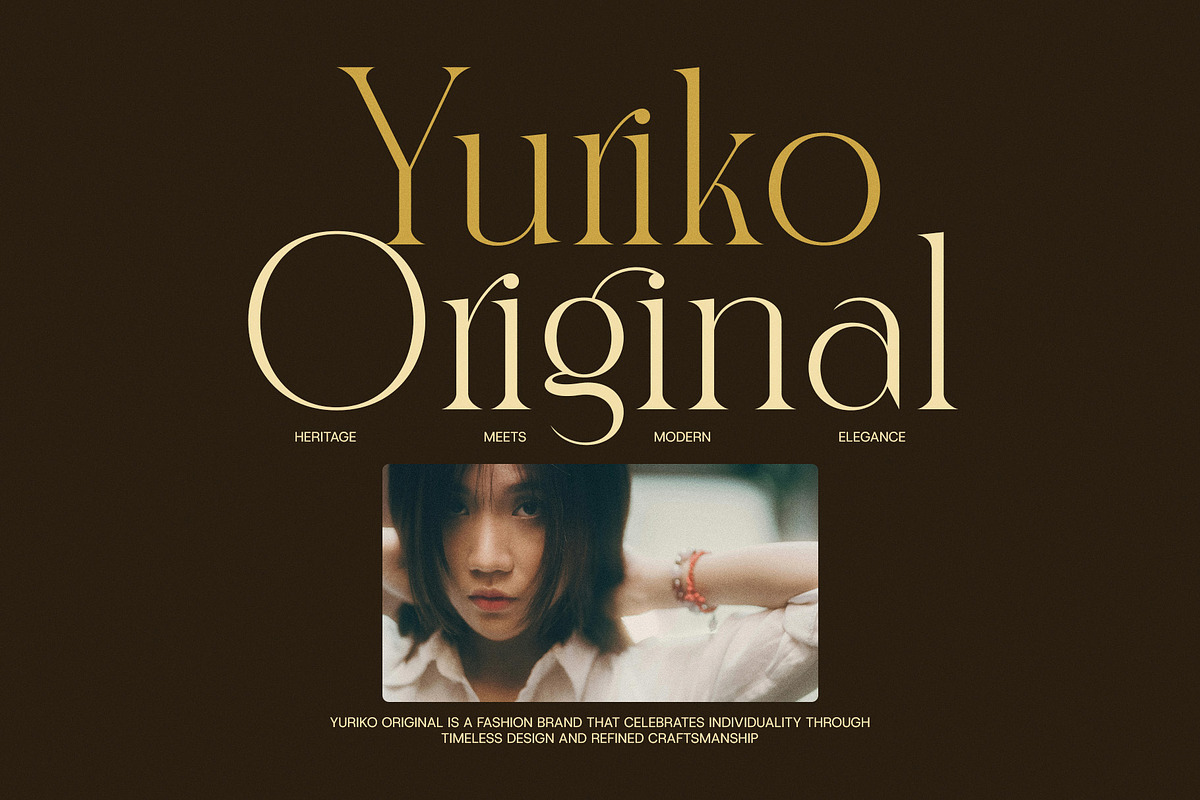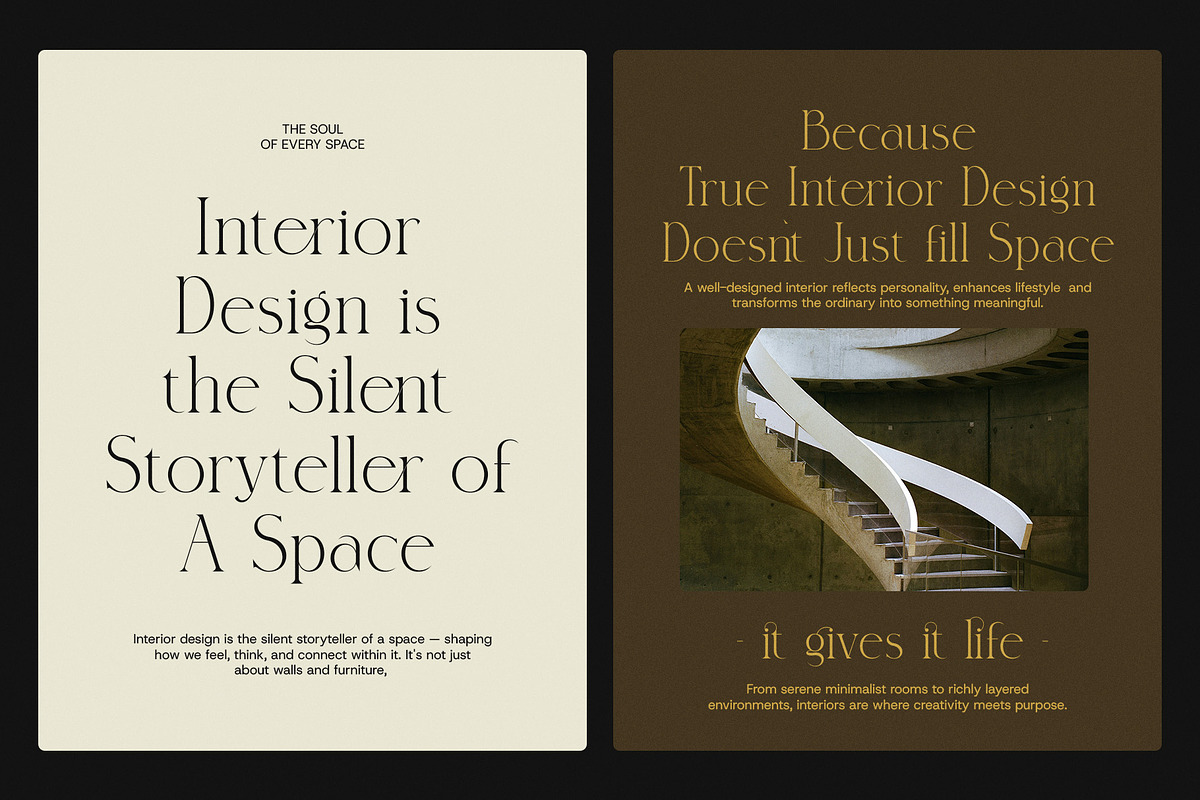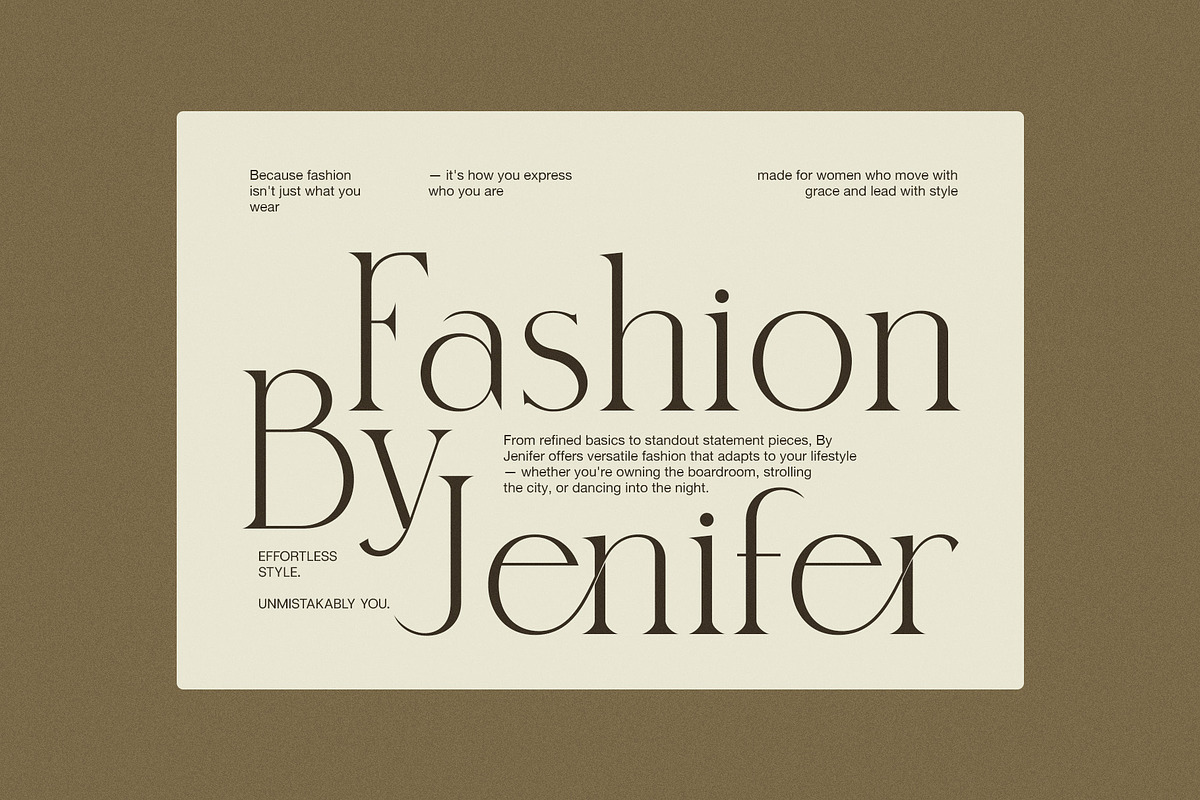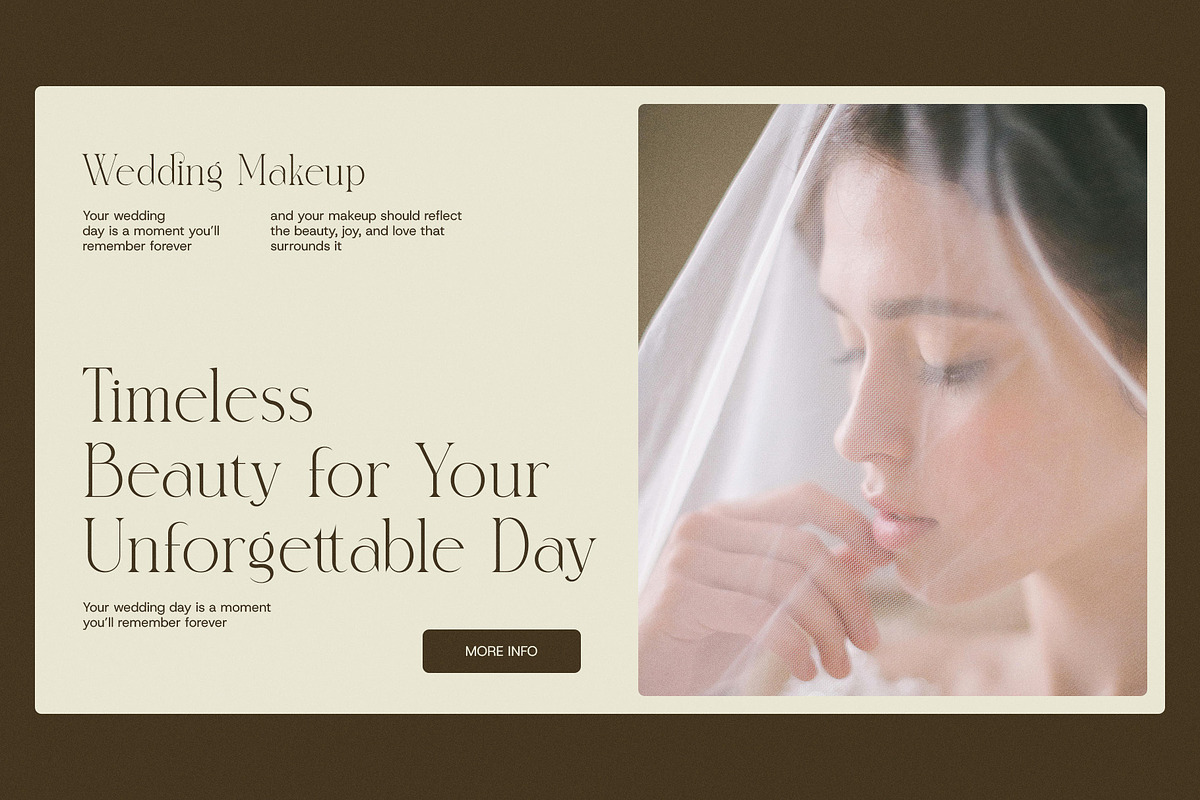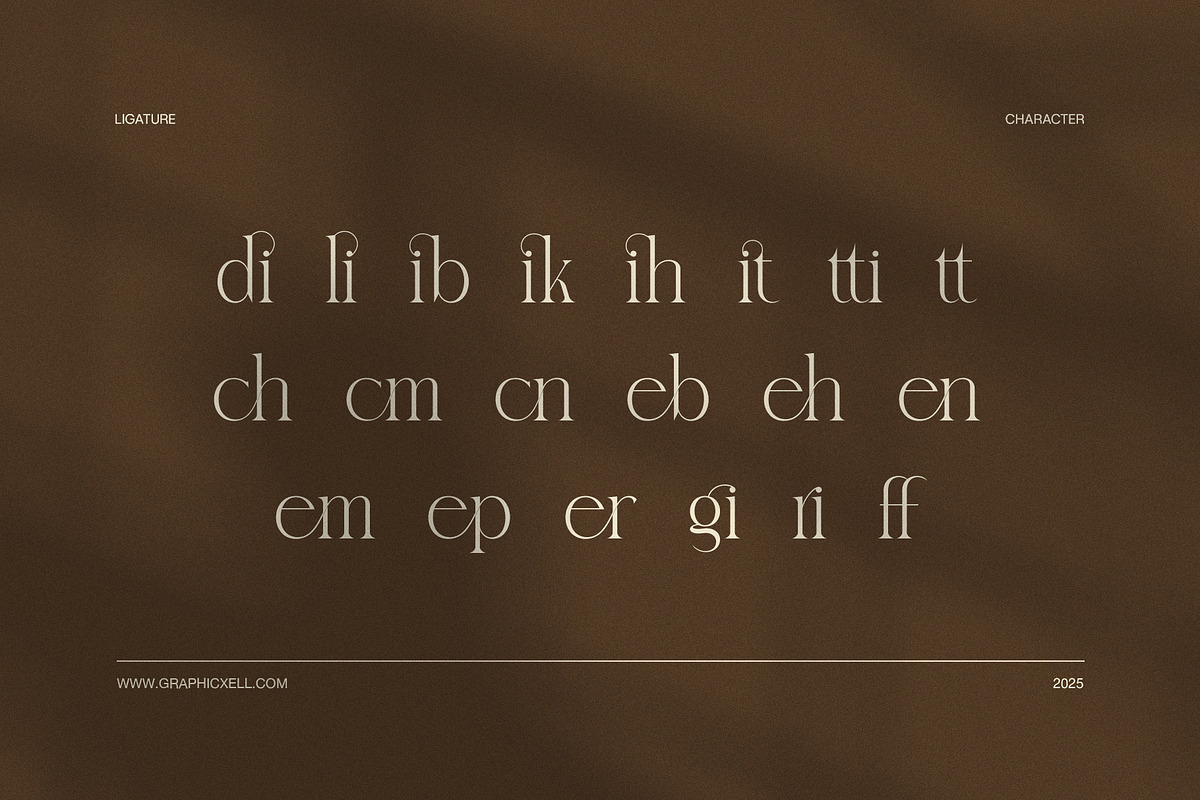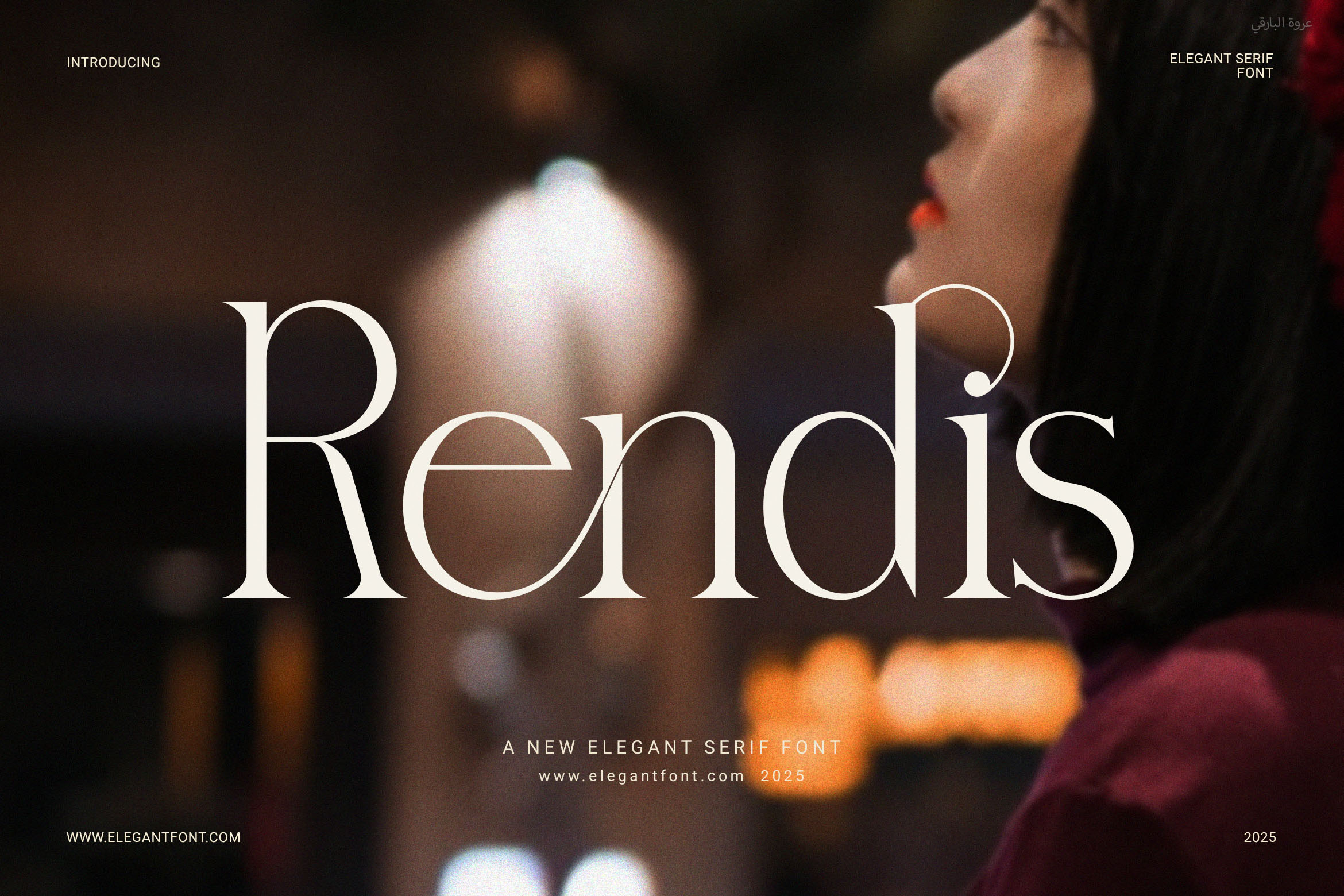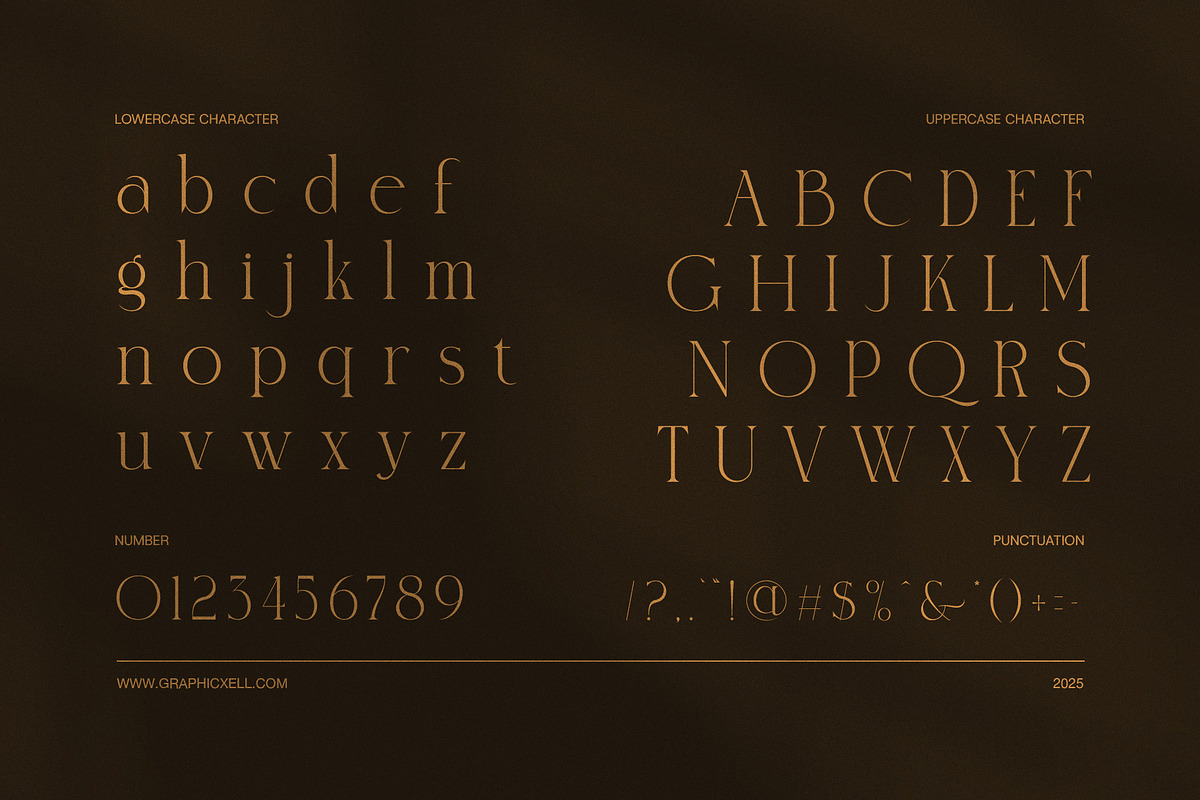
Rendis Elegant Serif Font
Rendis – A Clean & Elegant Serif for Stylish Branding
Rendis is a modern serif font with a clean and classy look. It features balanced letterforms and smooth curves, making it easy to read and pleasant to look at. Rendis brings a polished style to your design, whether it’s for print or digital use.
It also includes simple but useful ligatures that help your text look more natural. These small touches make your design flow better, without feeling stiff or crowded. Because of its style and clarity, Rendis is a great fit for many creative needs.
You can use Rendis for high-end branding, beauty product packaging, website headlines, magazine titles, or social media graphics. Its sharp lines and elegant look give every layout a fresh and modern feel. At the same time, it stays professional and clear in small sizes or bold titles.
✔️ Why Designers Choose Rendis:
Smooth serif style that feels modern yet timeless
Ligatures that add beauty and help text flow
Ideal for elegant logos, product names, and web layouts
Works well in both print and digital formats
Rendis also works well for wedding invitations, menus, portfolios, and branding for fashion or boutique products. Since it’s simple to use and always looks good, it’s a go-to choice for designers who want style with purpose. So, if you need a font that’s both sharp and flexible, Rendis is a great pick.